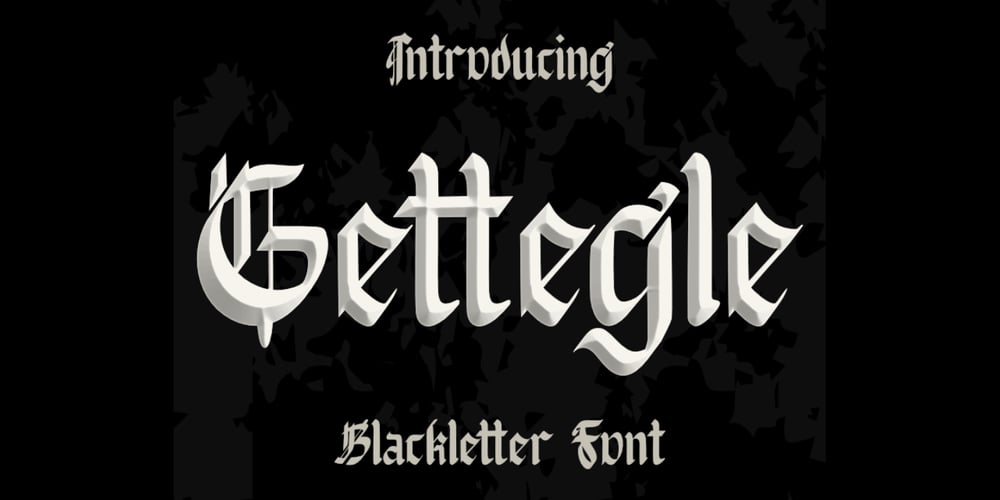
Gettegle
Gettegle font
Gettegle Font Family was designed by Bayu Aji Fais Mursid and published by Bayuktx. Gettegle contains 1 styles and family package options. Thank you for visiting my products, we will give you the best choice.Gettegle Blackletter, This font is made with a high premium quality level which you can use as flyers, quotes, posters, banners, packaging, merchandise, tattoo font, display font, logotypes and much more.FEATURES :* Uppercase* Lowercase* Number* Punctuation* Multilingual* PUA Encode* OpentypeFILES INCLUDED :* GettegleThank you